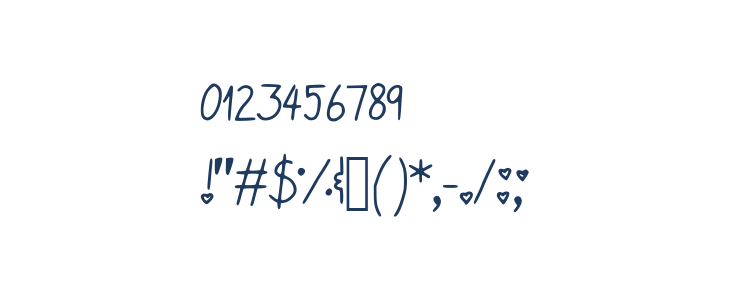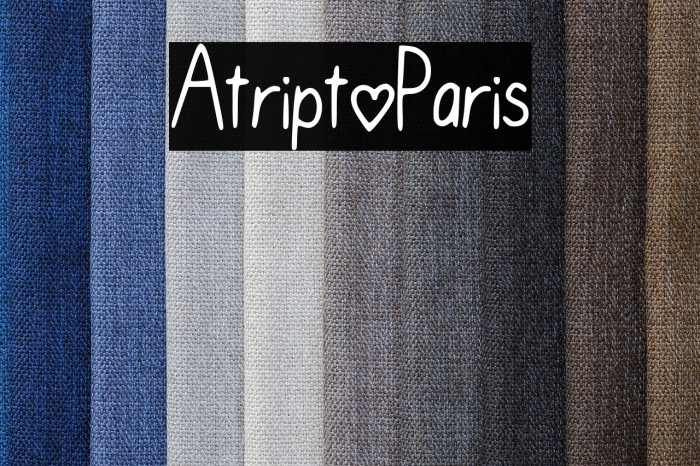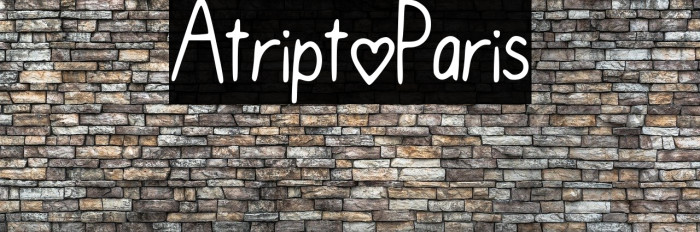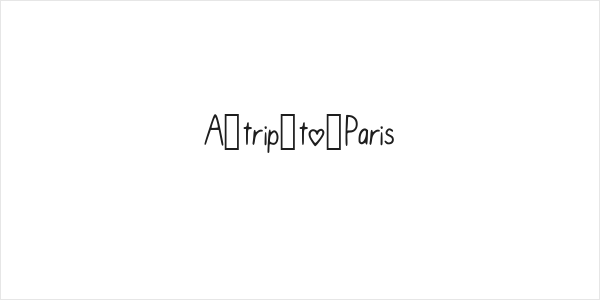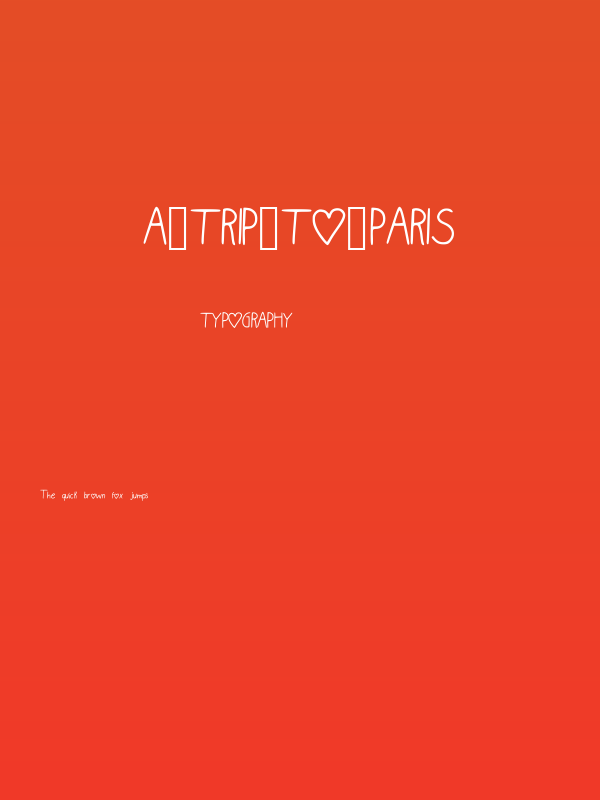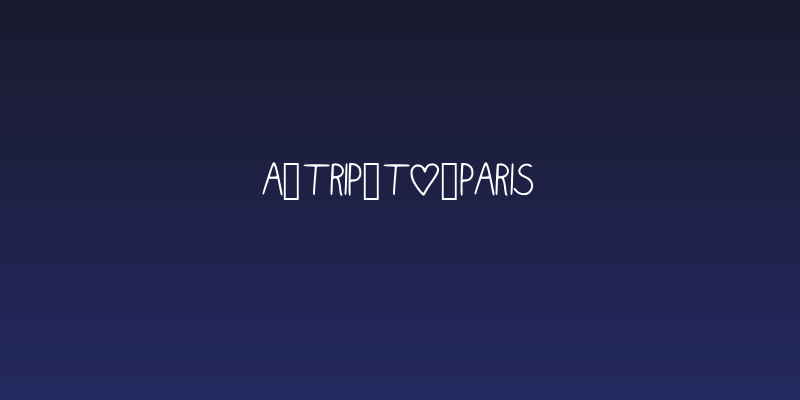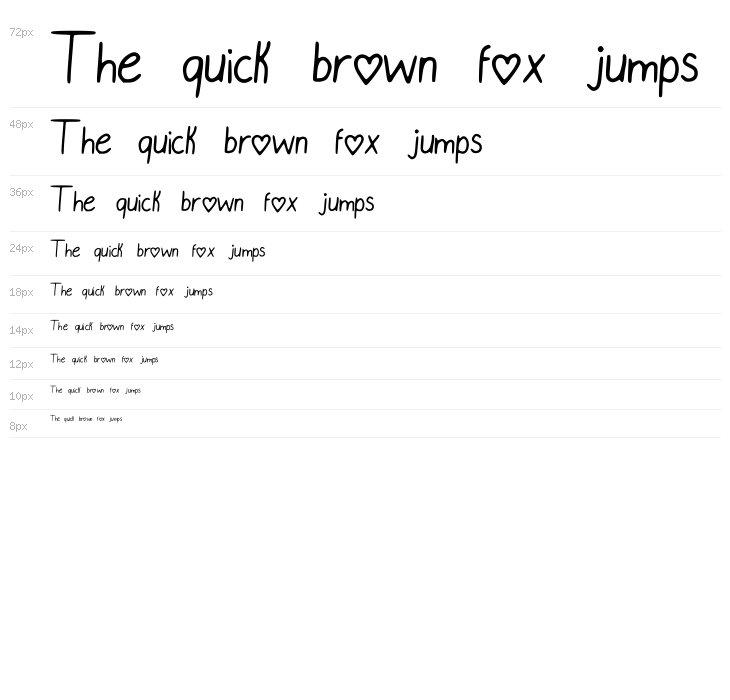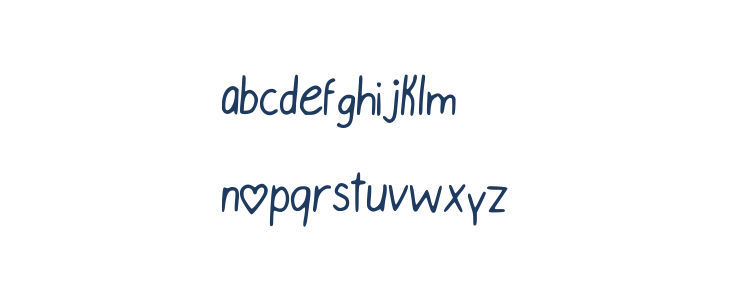
A_trip_to_Paris Font
A_trip_to_Paris Description
This playful and whimsical font features a handwritten style with a charming and casual appearance. The letters are slightly irregular, adding a personal touch to the text. The uppercase letters are tall and slender, while the lowercase letters maintain a consistent flow, enhancing readability. Notably, the font includes a heart-shaped 'O' in both uppercase and lowercase, adding a unique and endearing element. The numerals are clear and easy to read, complementing the overall style. Special characters are creatively designed, maintaining the playful theme. This font is perfect for projects that require a friendly and approachable feel.
| Use Case | Logos, Headlines, Informal text |
| Proposed Projects | Ideal for greeting cards, children's books, playful branding, and personal projects. |